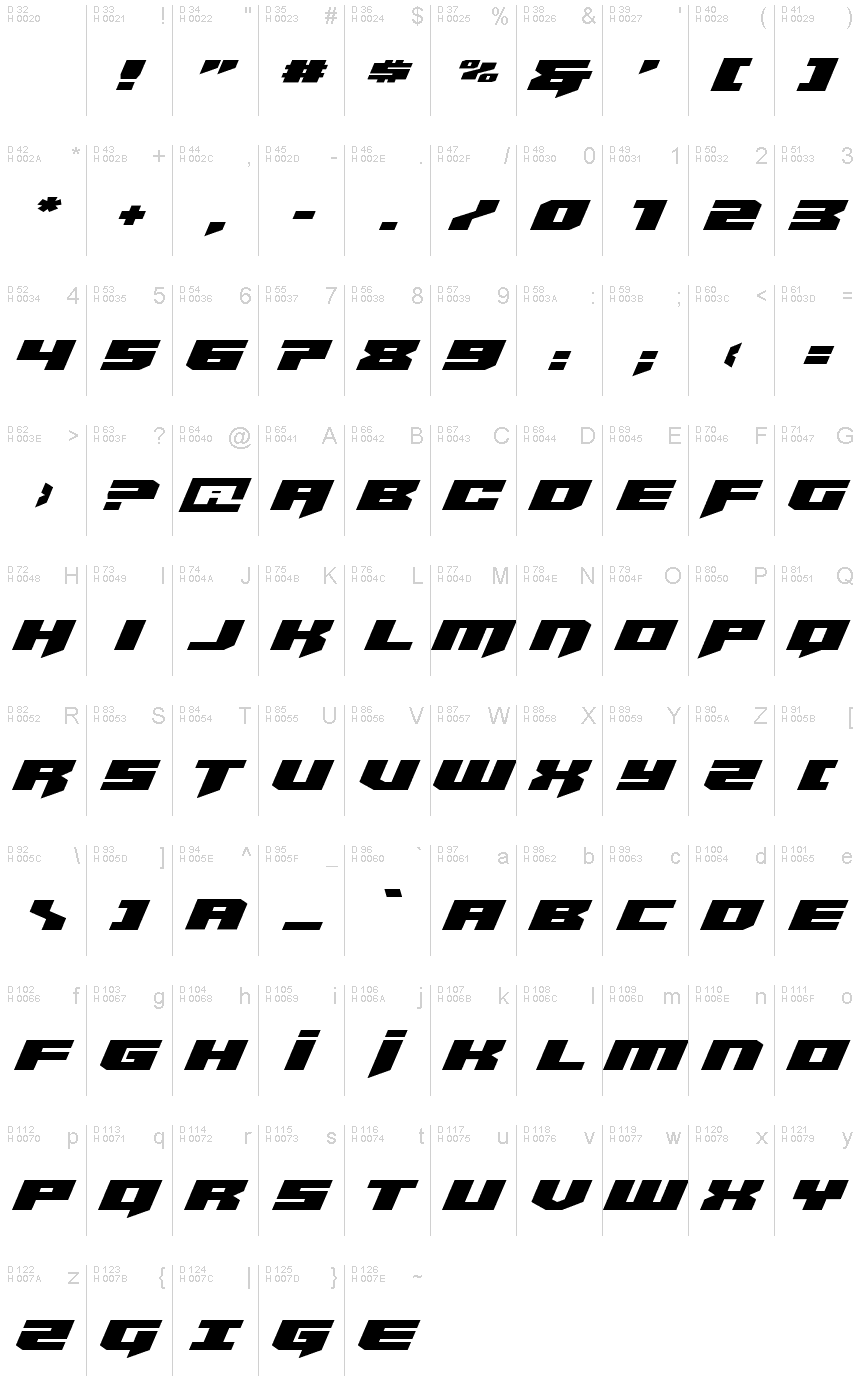
Bridge OFFicer Expanded
Bridge Officer Expanded emerges from the creative docks of Iconian Fonts, showcasing an unmistakable techno vibe that commands attention. Its extra-bold weight coupled with an extra-expanded width carves out a presence that's as assertive as it is futuristic. Crafted for impact, this display typeface is perfect for projects that demand a strong visual statement.
The aesthetic appeal of Bridge Officer Expanded lies in its geometric precision and modern flair. The clean lines and angular cuts give it a contemporary edge, ideal for titles, headers, and any space where legibility at large sizes is paramount. This font's style exudes confidence and technological sophistication, making it a fitting choice for gaming interfaces, sci-fi branding, or any digital platform seeking to project power and innovation.
Versatile yet distinctive, Bridge Officer Expanded is poised to elevate your creative endeavors with its bold character and expansive appeal. Whether you're designing a poster for a tech event or crafting the interface of the next hit mobile app, this font stands ready to deliver your message with authority and style.
The aesthetic appeal of Bridge Officer Expanded lies in its geometric precision and modern flair. The clean lines and angular cuts give it a contemporary edge, ideal for titles, headers, and any space where legibility at large sizes is paramount. This font's style exudes confidence and technological sophistication, making it a fitting choice for gaming interfaces, sci-fi branding, or any digital platform seeking to project power and innovation.
Versatile yet distinctive, Bridge Officer Expanded is poised to elevate your creative endeavors with its bold character and expansive appeal. Whether you're designing a poster for a tech event or crafting the interface of the next hit mobile app, this font stands ready to deliver your message with authority and style.